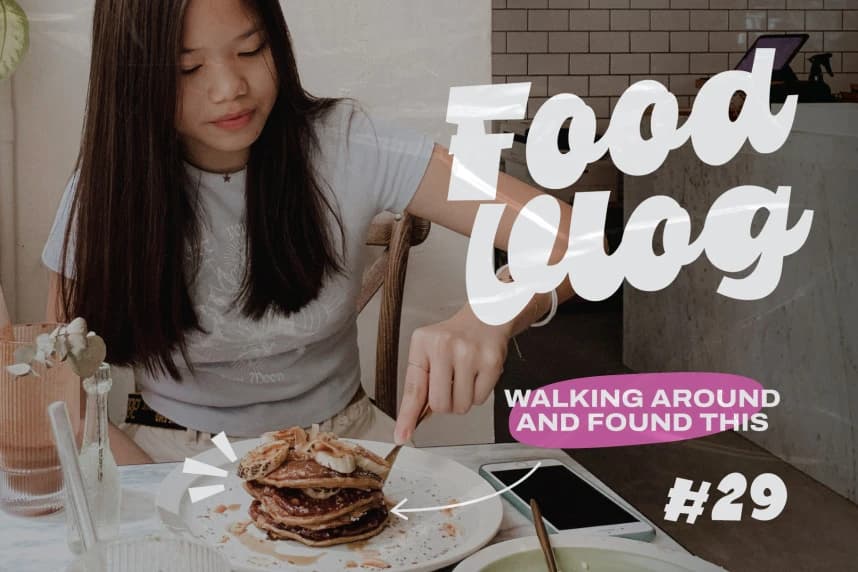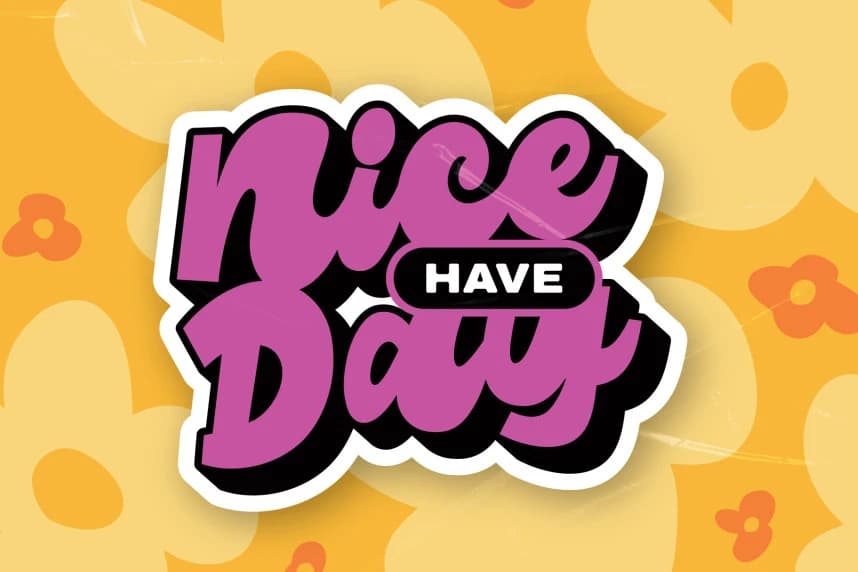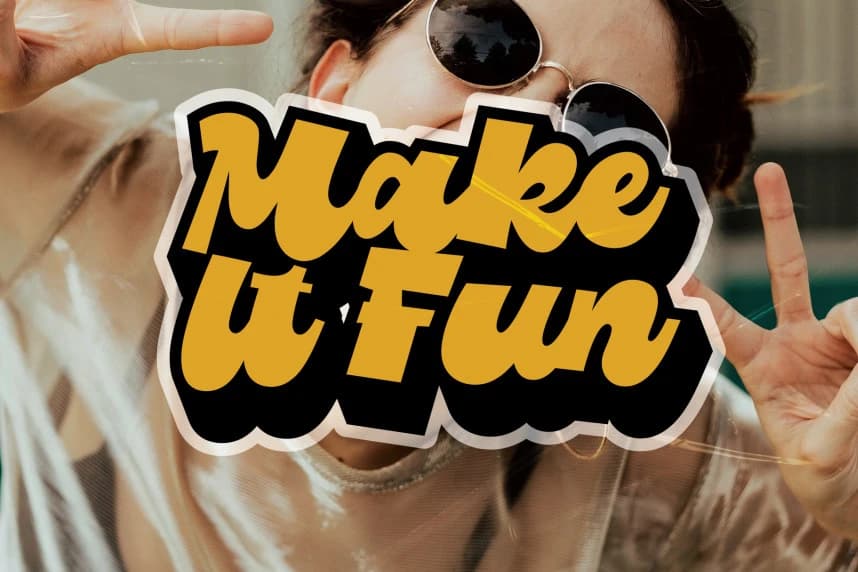
Winder Pop Bounce – Display Script Font. Winder Pop Bounce is a bold and playful display script font designed with thick strokes and energetic curves. Its bouncy letterforms and strong visual presence make it perfect for eye-catching headlines and high-impact designs.